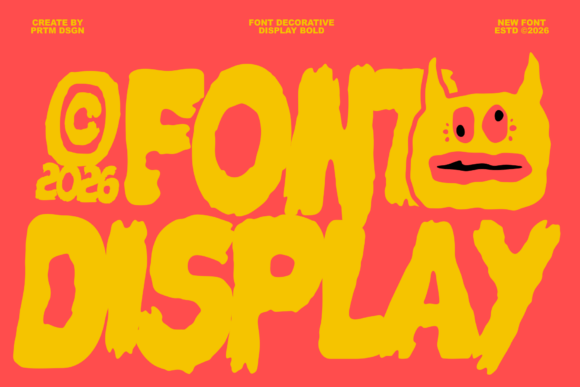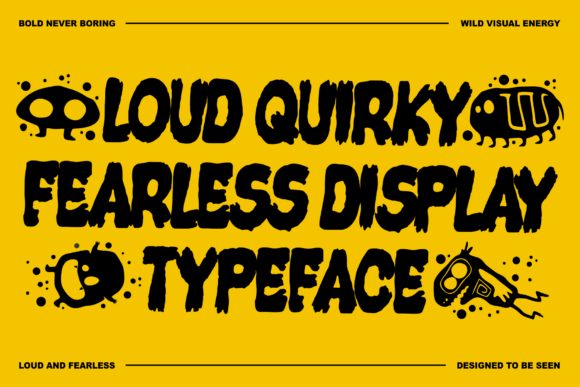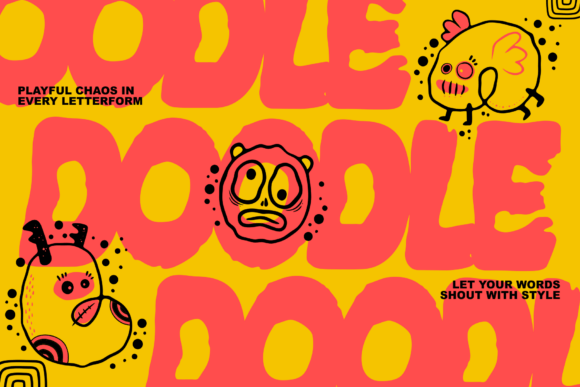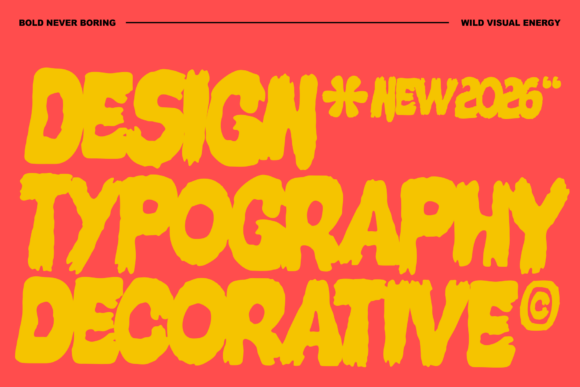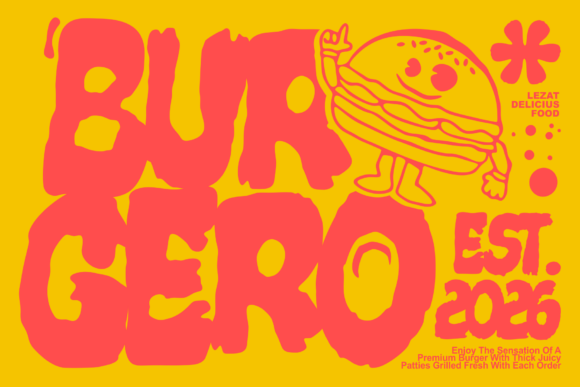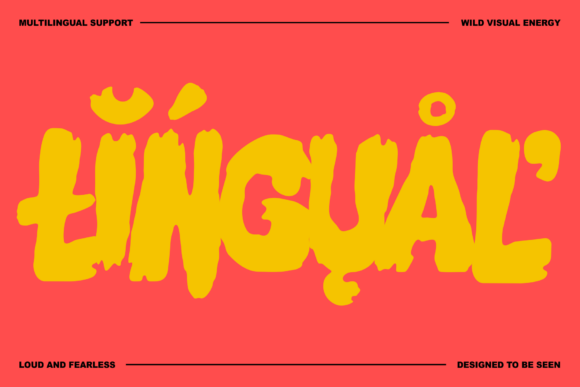
Introduction to Secoy Xecore Font
Have you ever stared at a blank canvas, waiting for the perfect idea to strike? That’s exactly where the magic happens – in the space between inspiration and execution. For designers, finding the right typeface can be the game-changer that takes a project from good to great. And that’s where the Secoy Xecore Font comes in – a bold, decorative typeface that breaks the rules and defies convention.
Imagine a font that’s not afraid to show its personality, with hand-drawn shapes and rough, organic edges that add a touch of imperfection to your design. That’s the Secoy Xecore Font in a nutshell – a high-quality design resource that’s perfect for projects that demand attention. Whether you’re working on a poster, album cover, or streetwear branding, this font is sure to deliver a strong visual impact that’s hard to ignore.
Key Features of Secoy Xecore Font
- High-quality design resource with a unique, modern aesthetic suitable for creative projects.
- Designed to be highly legible, making it perfect for use in body text, headings, and titles.
- Part of a larger font family, offering a range of weights and styles to suit various design needs.
Honest Review: Secoy Xecore Font
I recently had the chance to work with the Secoy Xecore Font, and I must say it’s a solid addition to any designer’s toolkit. The free download was a nice touch, and the high-quality design made it a pleasure to use.
Here are some things that worked well for me:
- ✨ Great for creative projects: The Secoy Xecore Font is perfect for designers who need a unique, eye-catching font to bring their projects to life.
- ✨ Easy to read: Despite its bold design, the font is still easy to read, even at smaller sizes.
- ✨ Versatile: The Secoy Xecore Font can be used for a wide range of applications, from logos to body text.
That being said, there are a few limitations to consider:
- ⚠️ Limited customization options: While the font itself is well-designed, there are limited options for customization, which may not be ideal for designers who like to get creative.
- ⚠️ Not suitable for transparent backgrounds: The font’s design may not work well with transparent backgrounds, which could be a problem for designers who like to use this feature.
Overall, I’m impressed with the Secoy Xecore Font. It’s a great resource for designers who need a high-quality, unique font for their creative projects. While it may have some limitations, I think it’s well worth checking out.
Tips for Getting the Most Out of Secoy Xecore Font
Experiment with different font sizes, colors, and styles to find the perfect combination for your design. Use the font in conjunction with other design elements to create a cohesive and engaging visual representation. Take advantage of the font’s free download feature to experiment with different design concepts.
The Secoy Xecore Font is ideal for a variety of creative projects, including graphic design, digital art, and typography. Its high-quality design and transparent background feature make it an excellent resource for designers looking to create visually appealing and engaging designs.